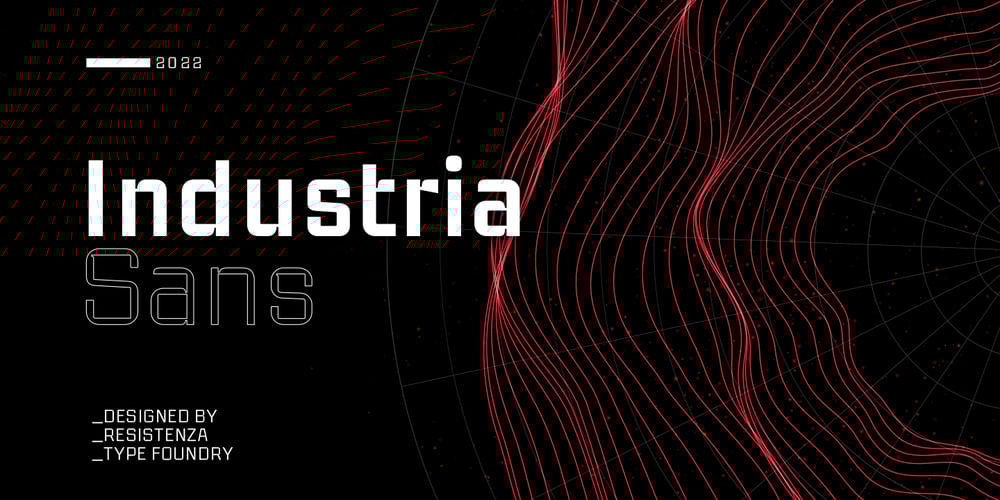
Industria Sans
Industria Sans font
Industria Sans Font Family was designed by Giuseppe Salerno, Paco González and published by Resistenza. Industria Sans contains 36 styles and family package options. This a big family called Industria Sans made of 36 cuts. Industria is modular, geometric, with ink traps and a lot of opentype features. We wanted to create a modular sans serif family with a good legibility. If you are working on branding and designing project for large scale identity then this font family is perfect for you. You can a give a bold and strong look to your design projects with Industria Sans.With its strong vertical appearance and soft rounded corners, ink traps Industria Sans is very versatile. Perfect for posters, logos, headlines, branding, blogs and more. With 446 GlyphsMore About Opentype Features: https://bit.ly/opentype-rsz